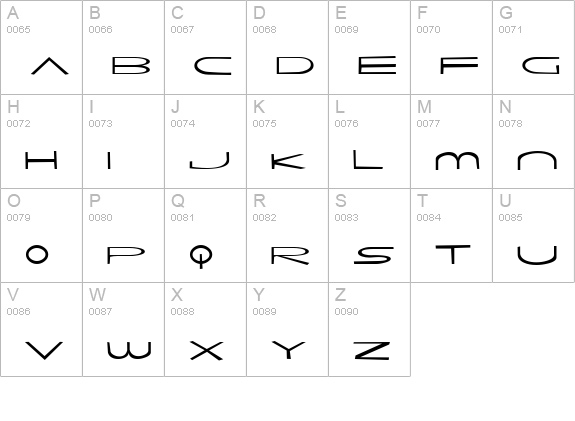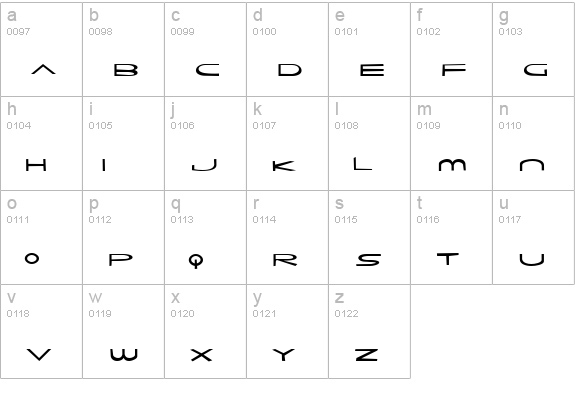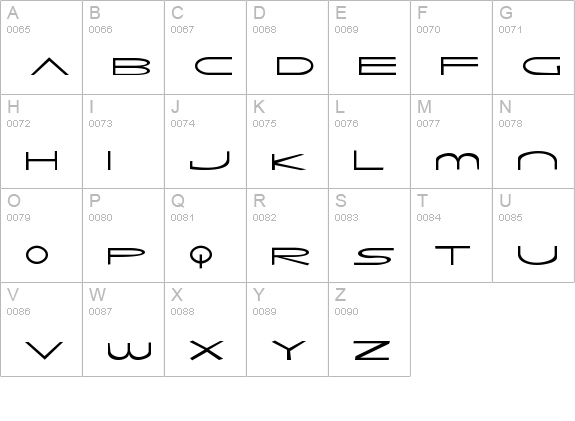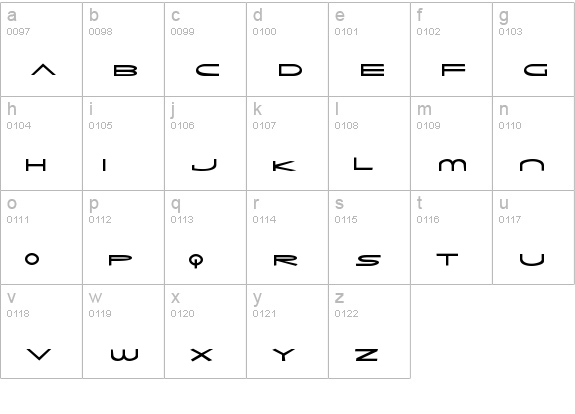
Introducing the captivating and enigmatic Monkey's Ate My Soul font, a stunning display of typographic excellence that will leave you spellbound. With its bold and eccentric design, this font is guaranteed to make a lasting impression on any project. Monkey's Ate My Soul font features an exquisite combination of playful curves and intricate details, effortlessly capturing the mischievous spirit of our primate friends. Its unique and eye-catching letterforms will inject a sense of whimsy and intrigue into your designs, making them truly unforgettable. But what makes Monkey's Ate My Soul font truly remarkable is its versatility. Whether you're creating a logo, designing a poster, or crafting a captivating headline, this font adapts effortlessly to any creative endeavor, adding that perfect touch of personality and flair. And the best part? Monkey's Ate My Soul font is freely available to download at FontsMarket.com. Yes, you read that right! You can now embrace the boundless creativity of this extraordinary font without breaking the bank. Unlocking unlimited possibilities has never been easier or more accessible. So, what are you waiting for? Unleash the power of Monkey's Ate My Soul font and let your imagination run wild. Get ready to embark on a thrilling typographic journey that will captivate hearts, minds, and souls. Download Monkey's Ate My Soul font today at FontsMarket.com and enjoy the freedom to create without limits.